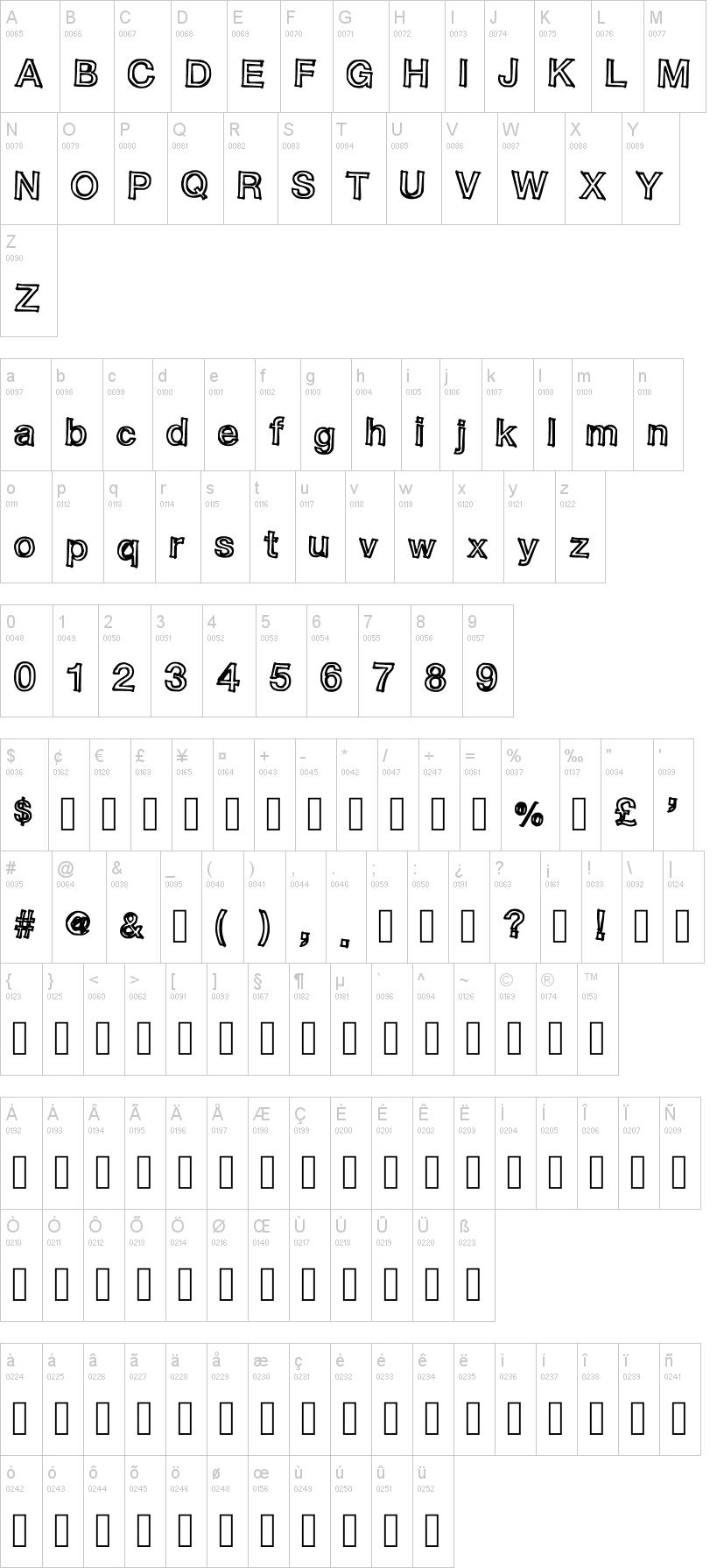
Note of the authorLooking for a clean, handwritten comic style without any of the hang-ups from THAT other comic font? Great for birthday invites, children's parties and such.